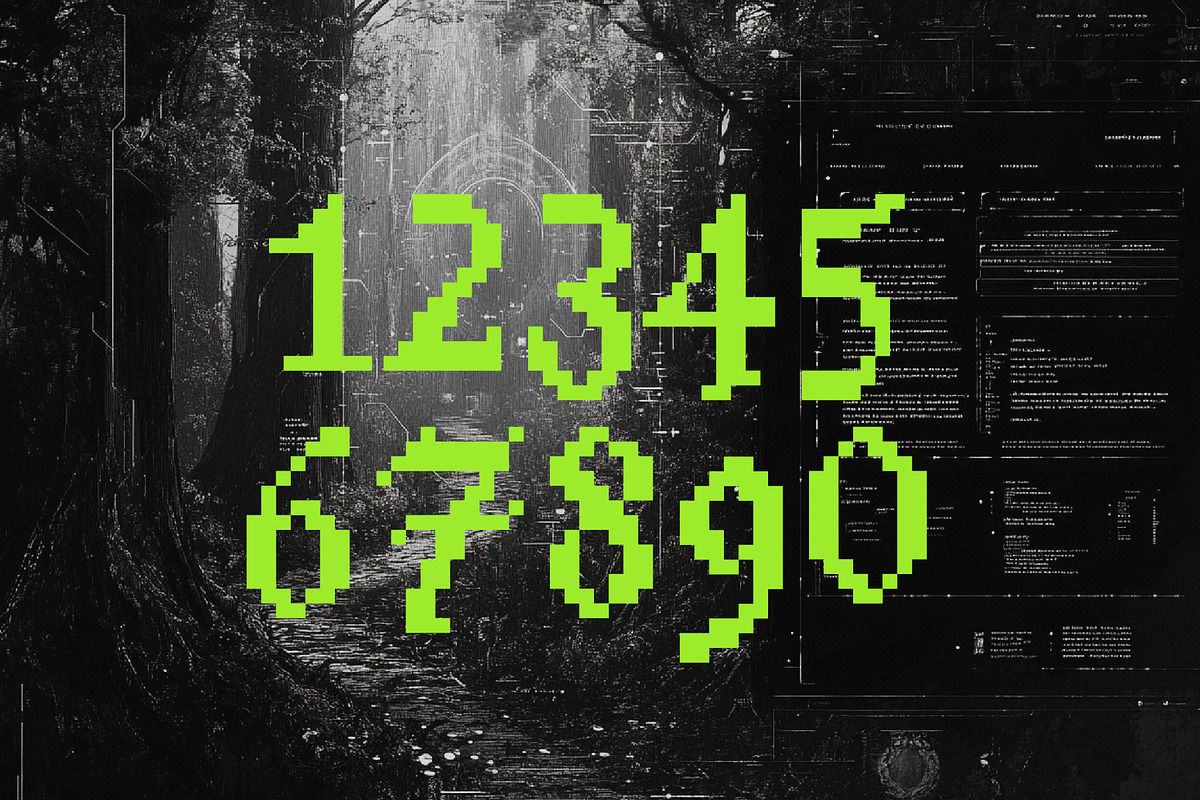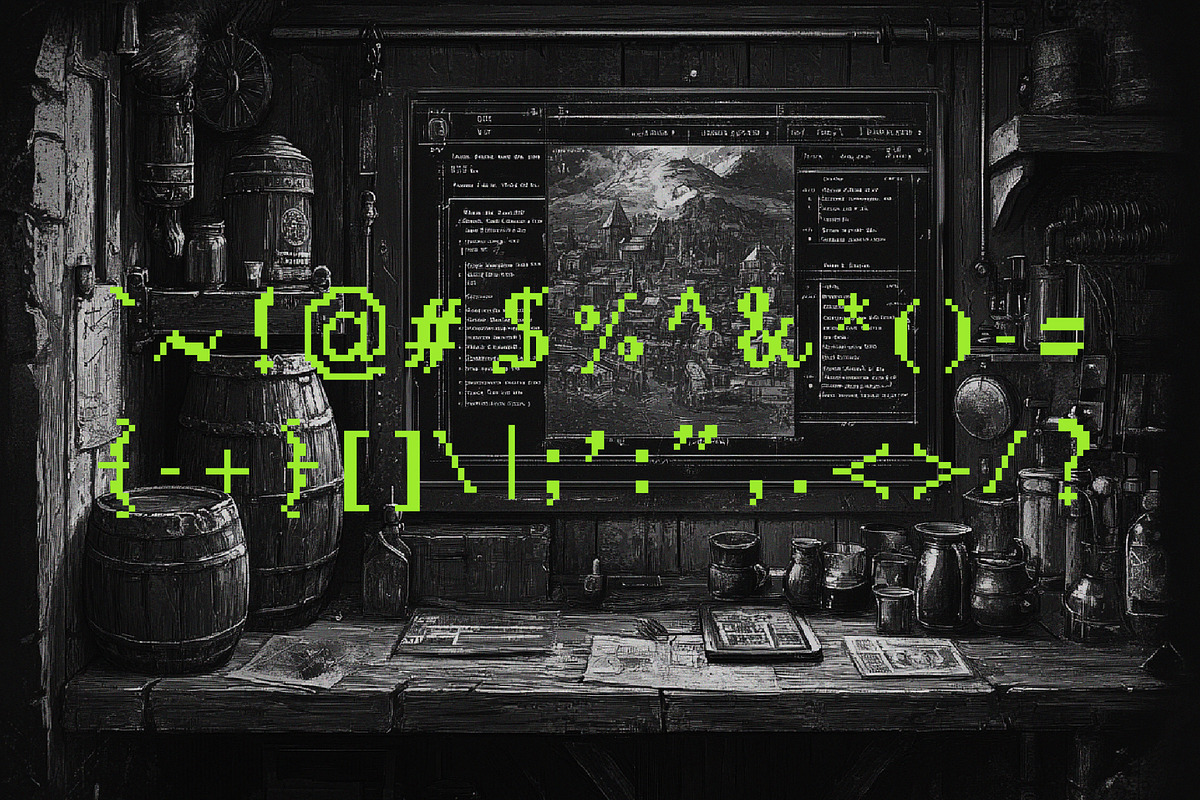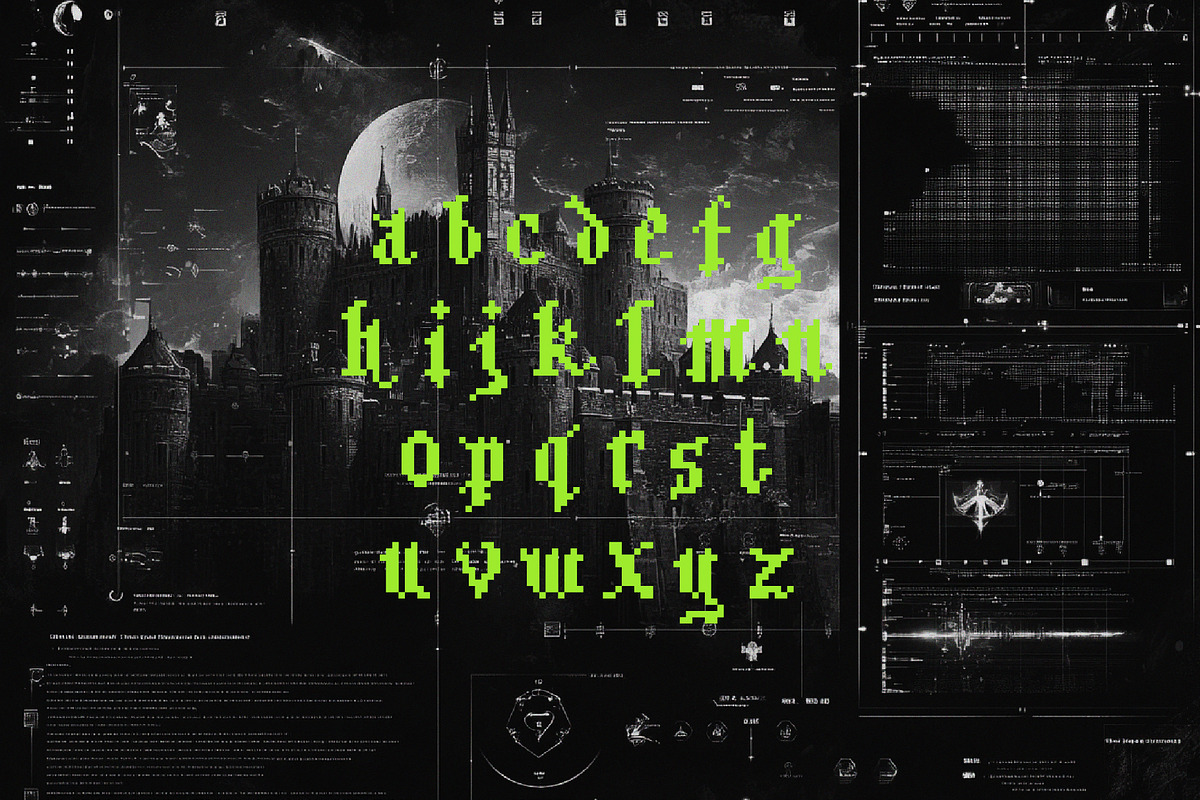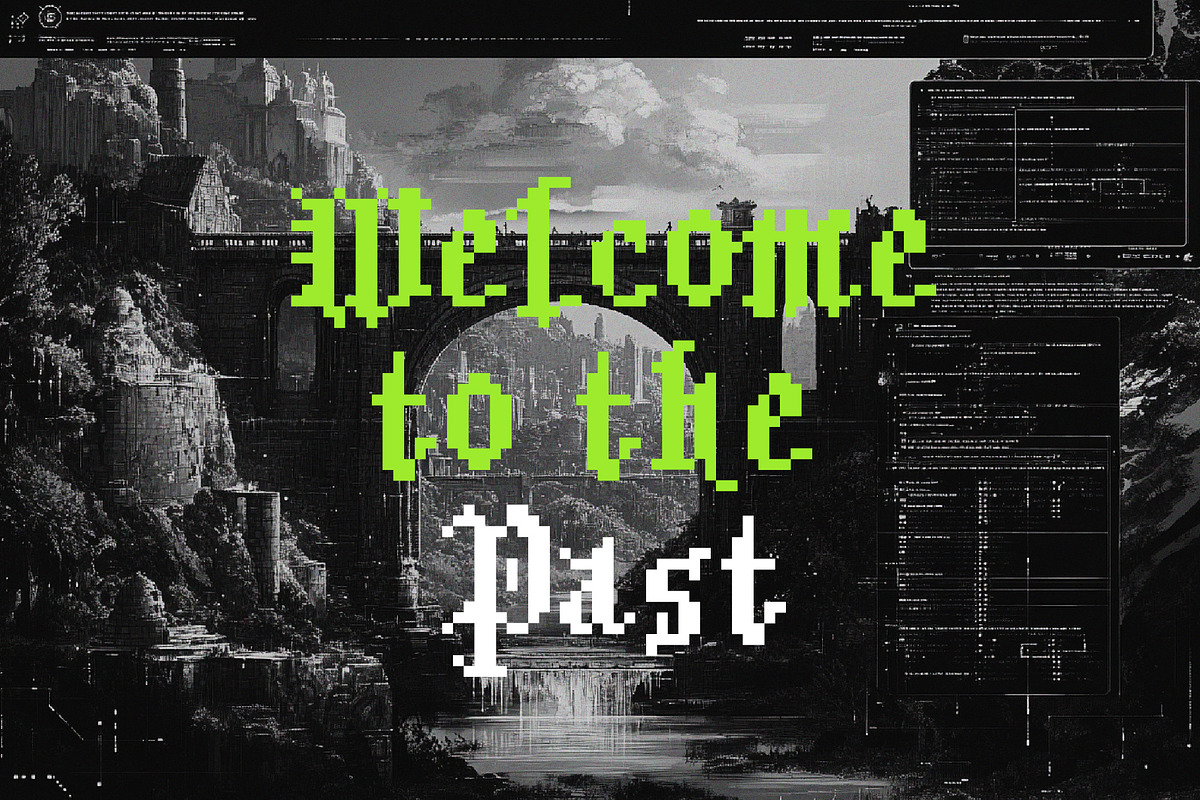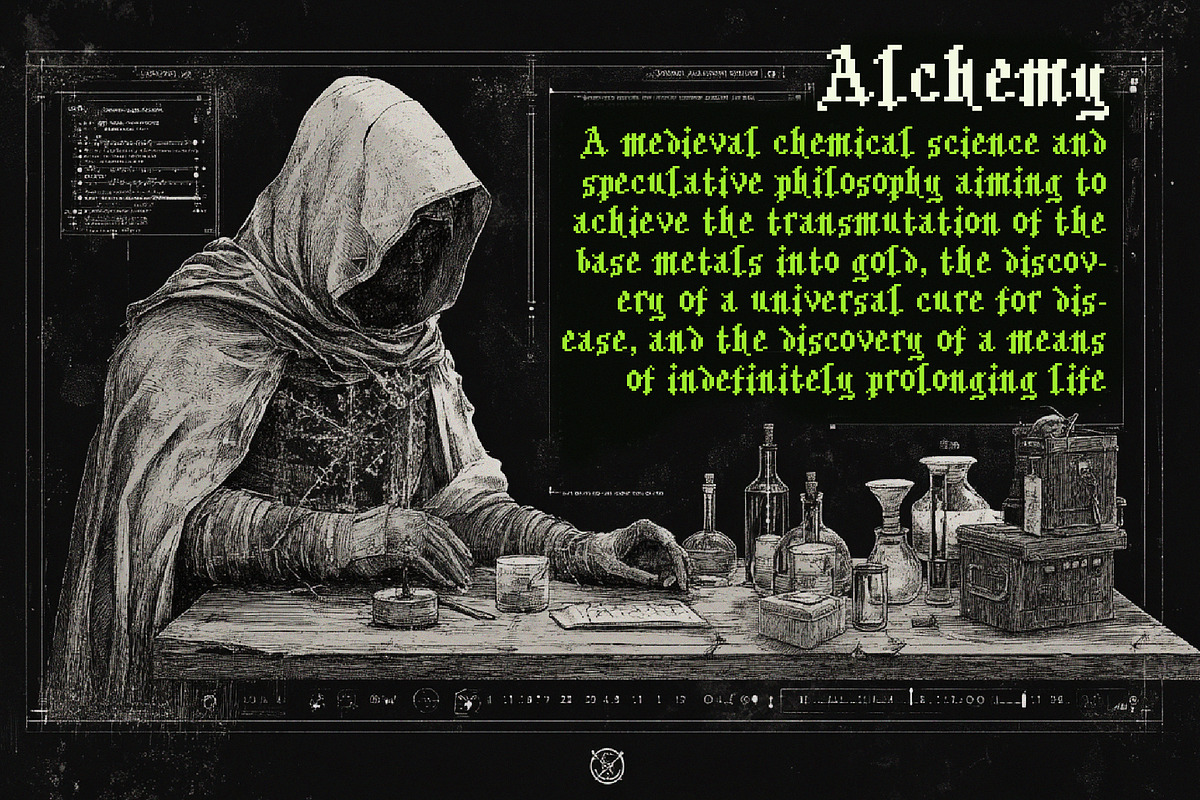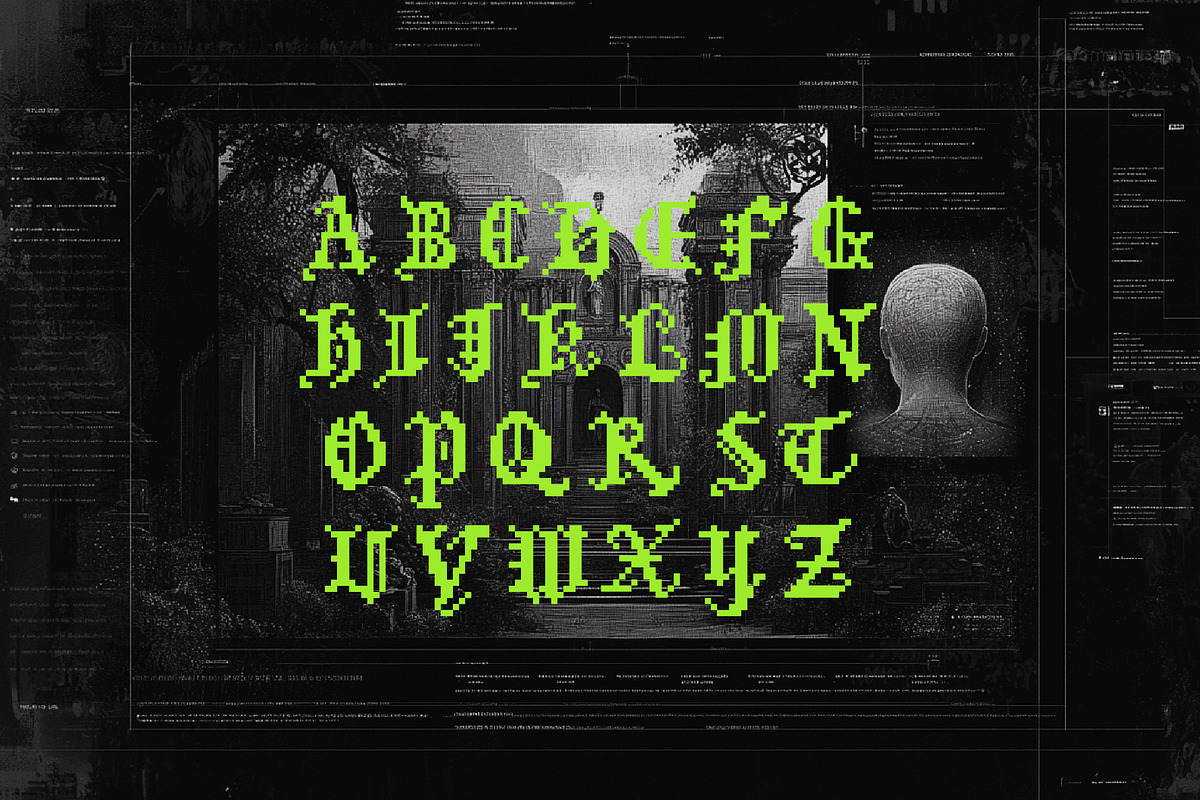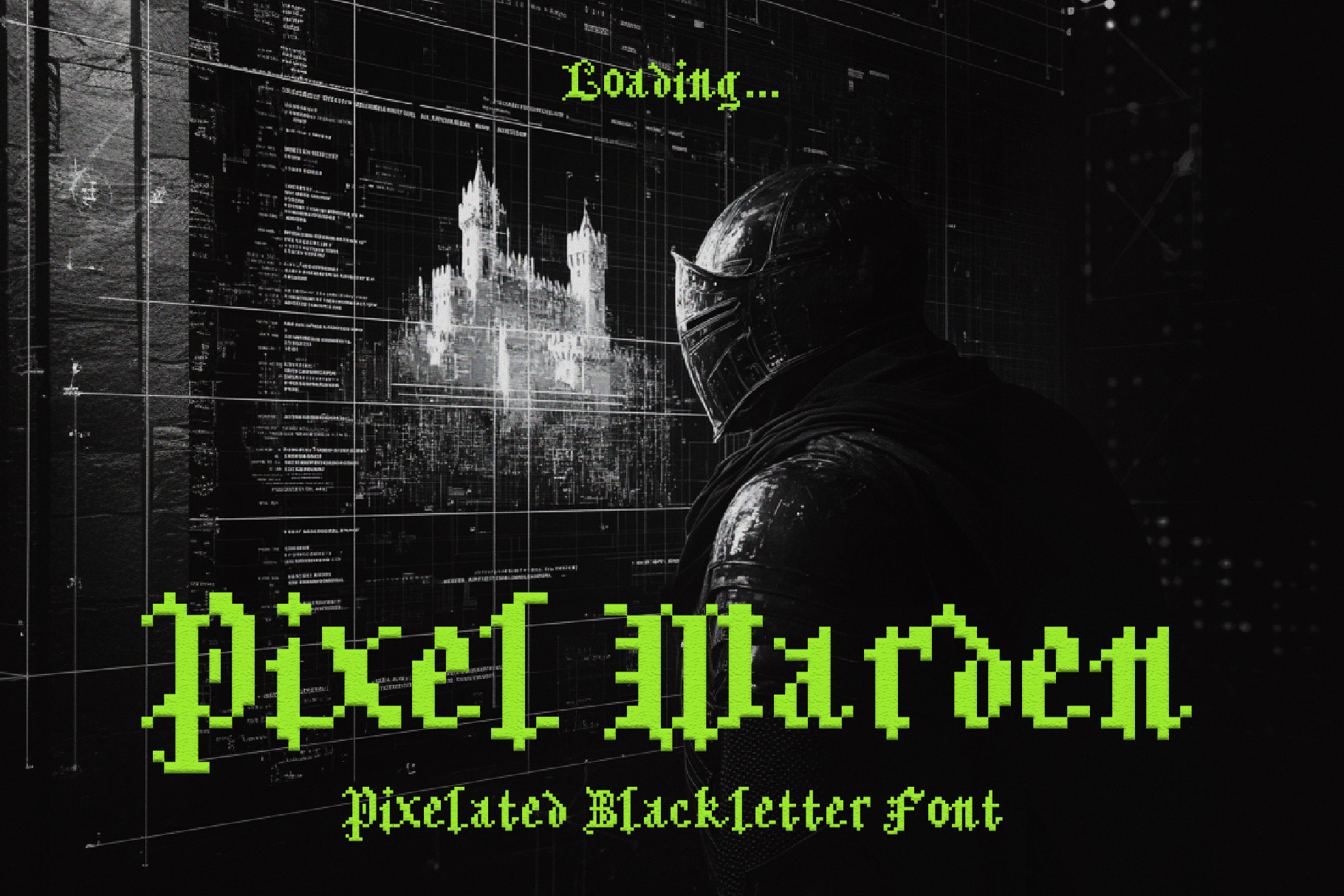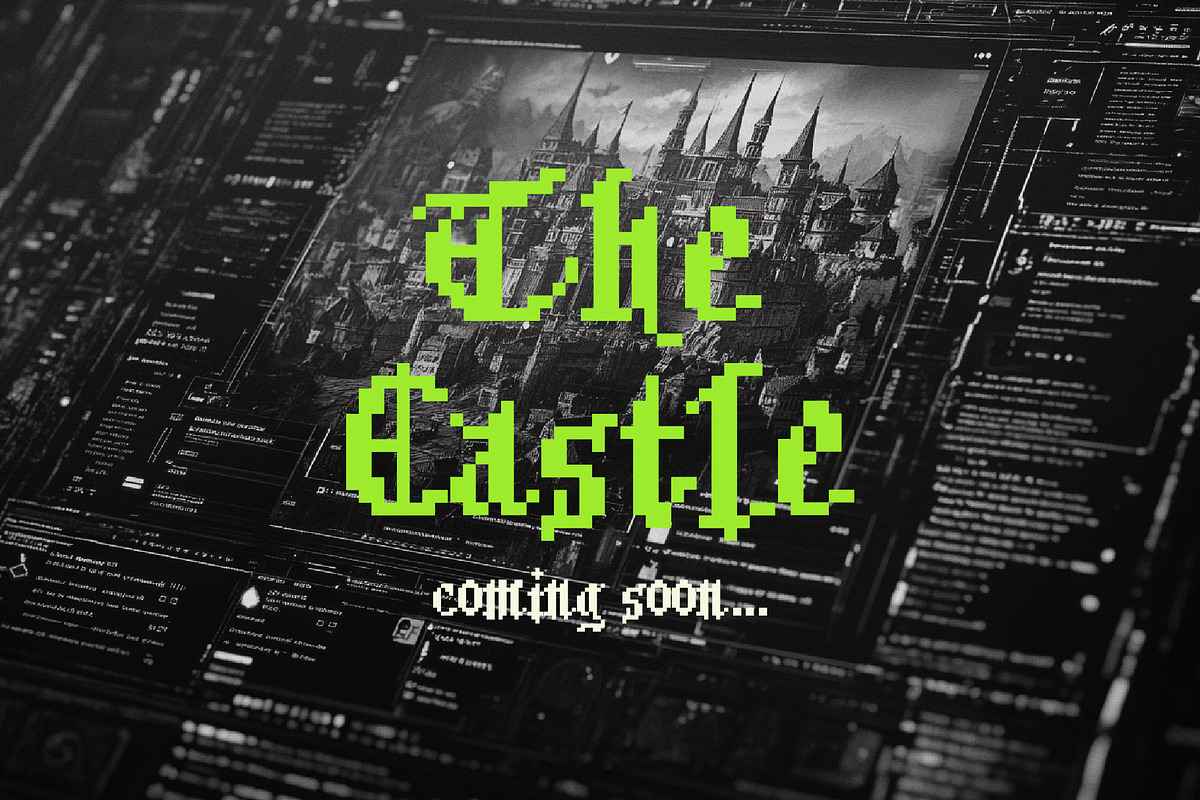
Pixel Warden - Blackletter Typeface
Step into a realm where the past meets the digital future with Pixel Warden, a bold blackletter pixel font that commands attention. Inspired by the grandeur of medieval manuscripts and the sharp precision of 8-bit artistry, this typeface is your gateway to creating designs that exude power, tradition, and a hint of rebellion.
Perfect for retro gaming projects, fantasy-themed posters, epic album covers, or anything that demands a touch of gothic elegance with a modern twist. Each character is meticulously crafted to blend the angular beauty of blackletter with the structured simplicity of pixel art, delivering a unique aesthetic that’s as timeless as it is innovative.